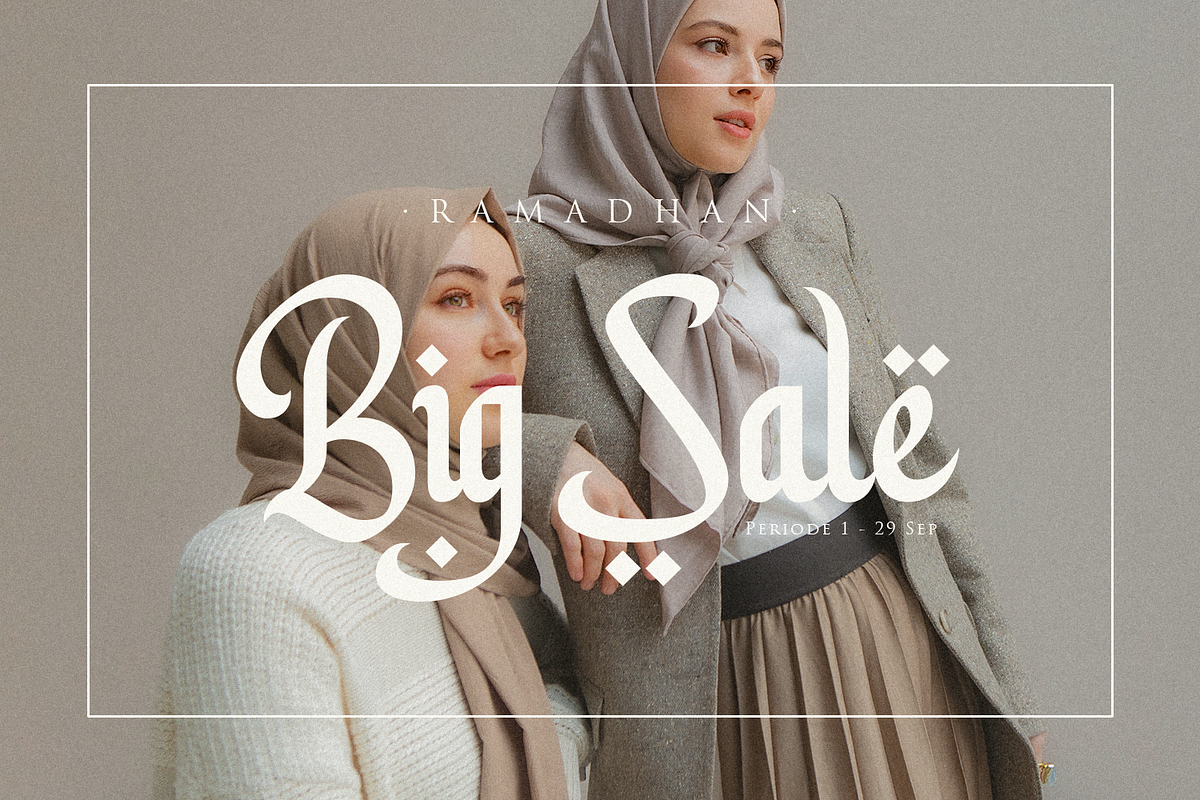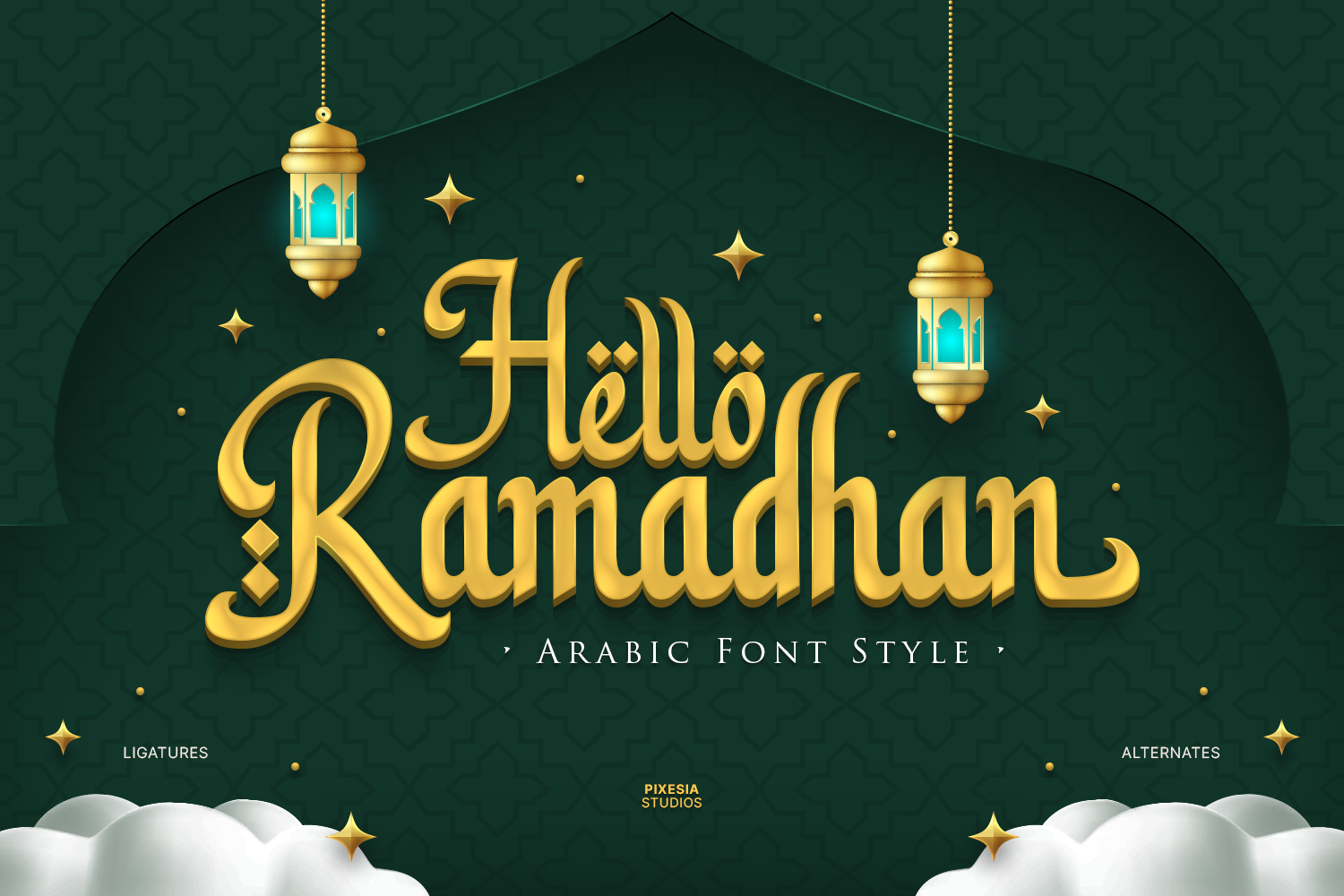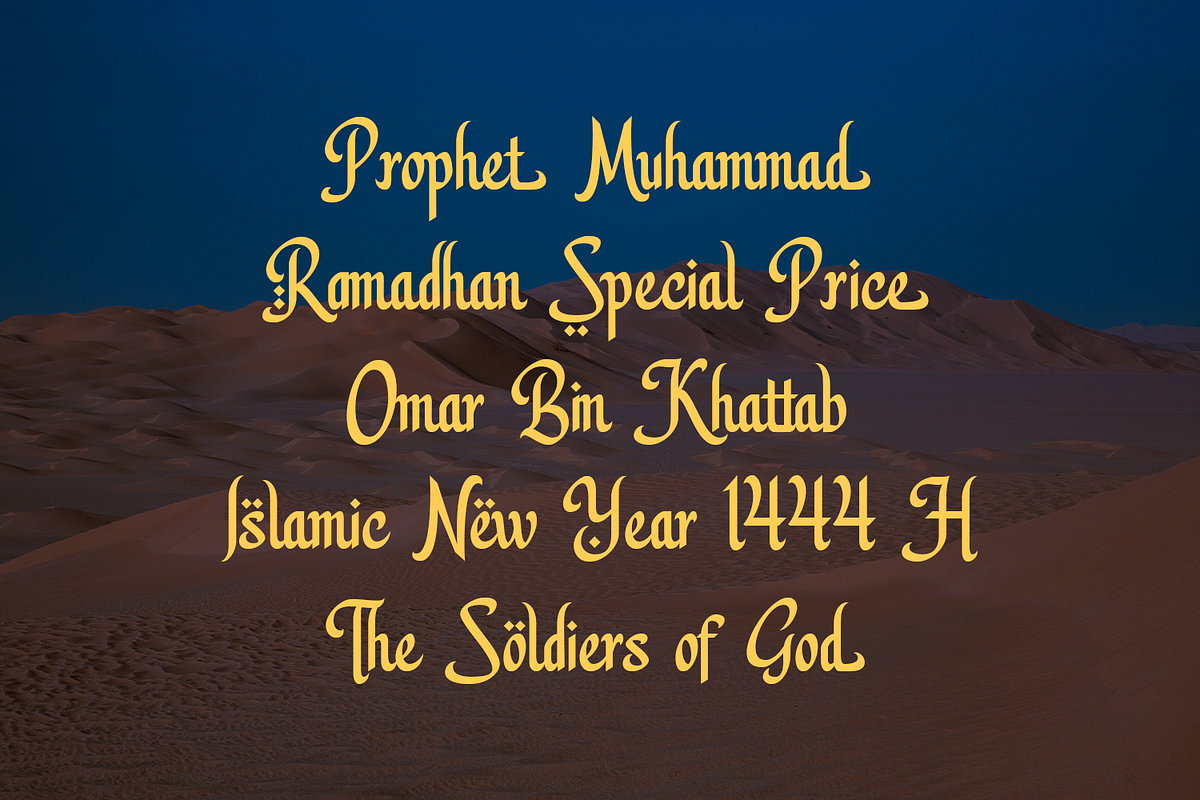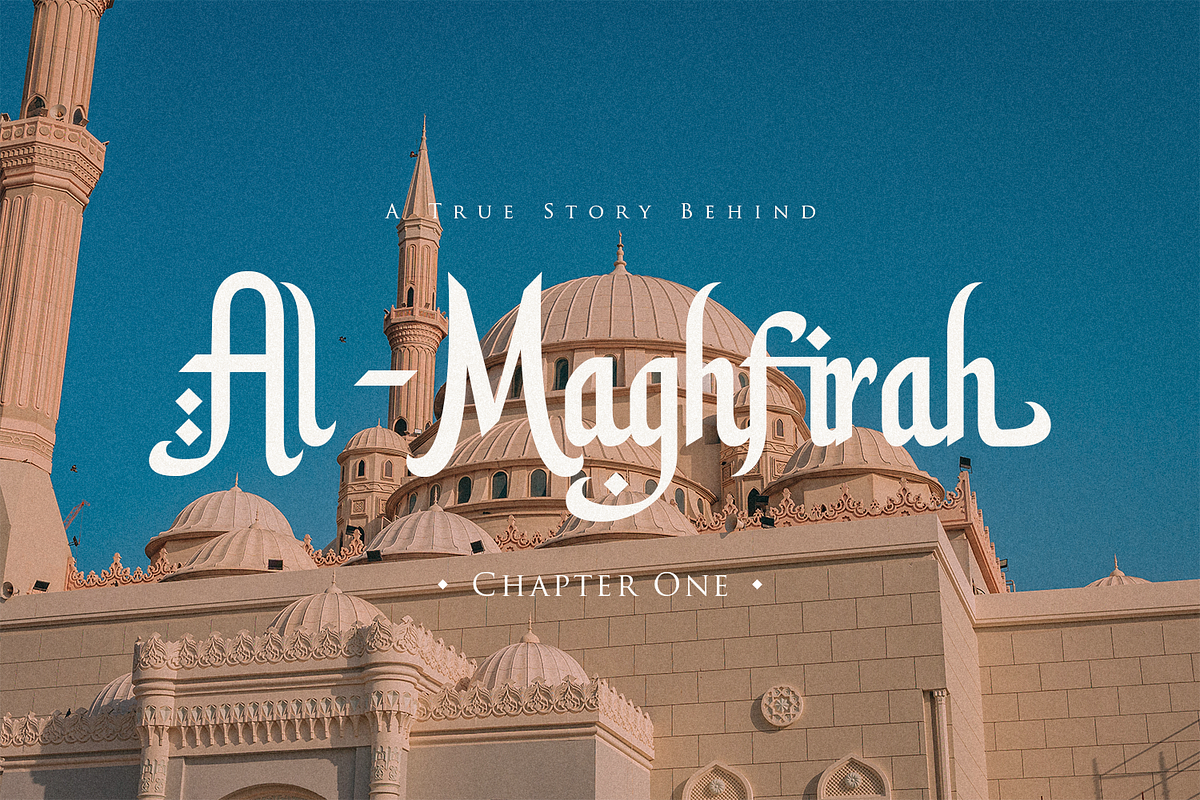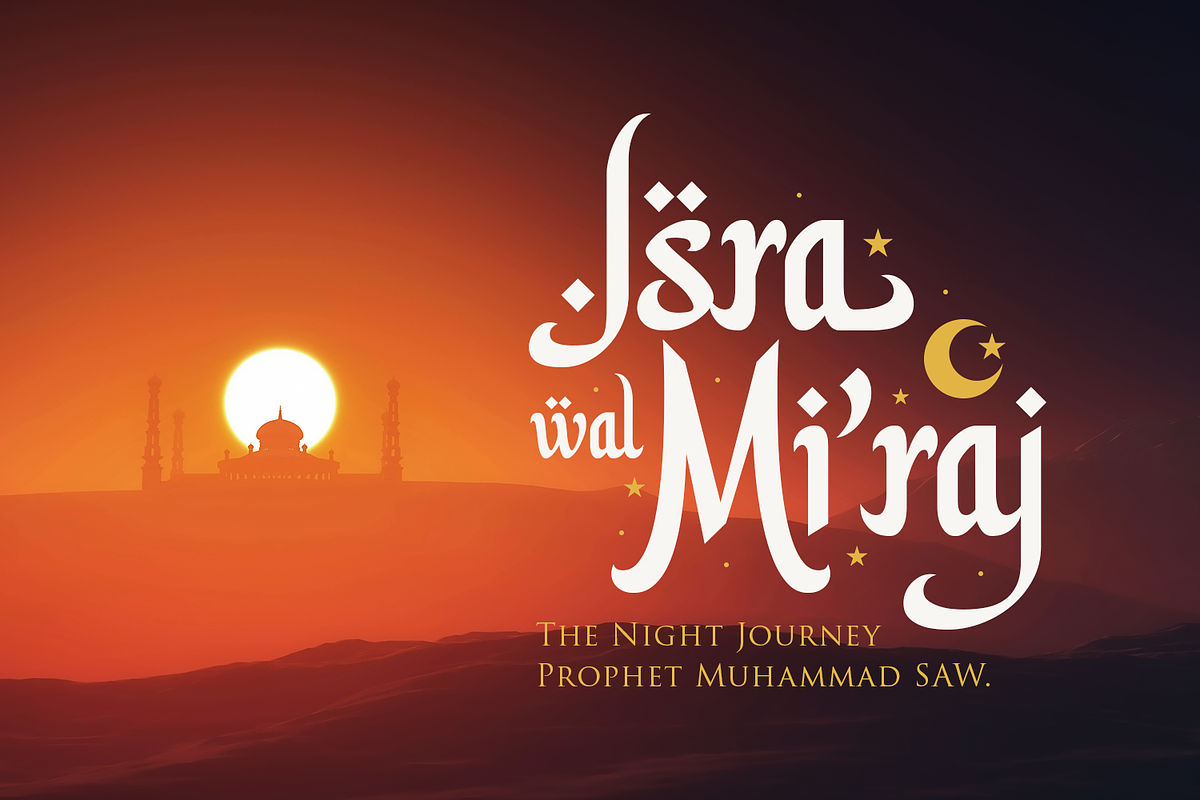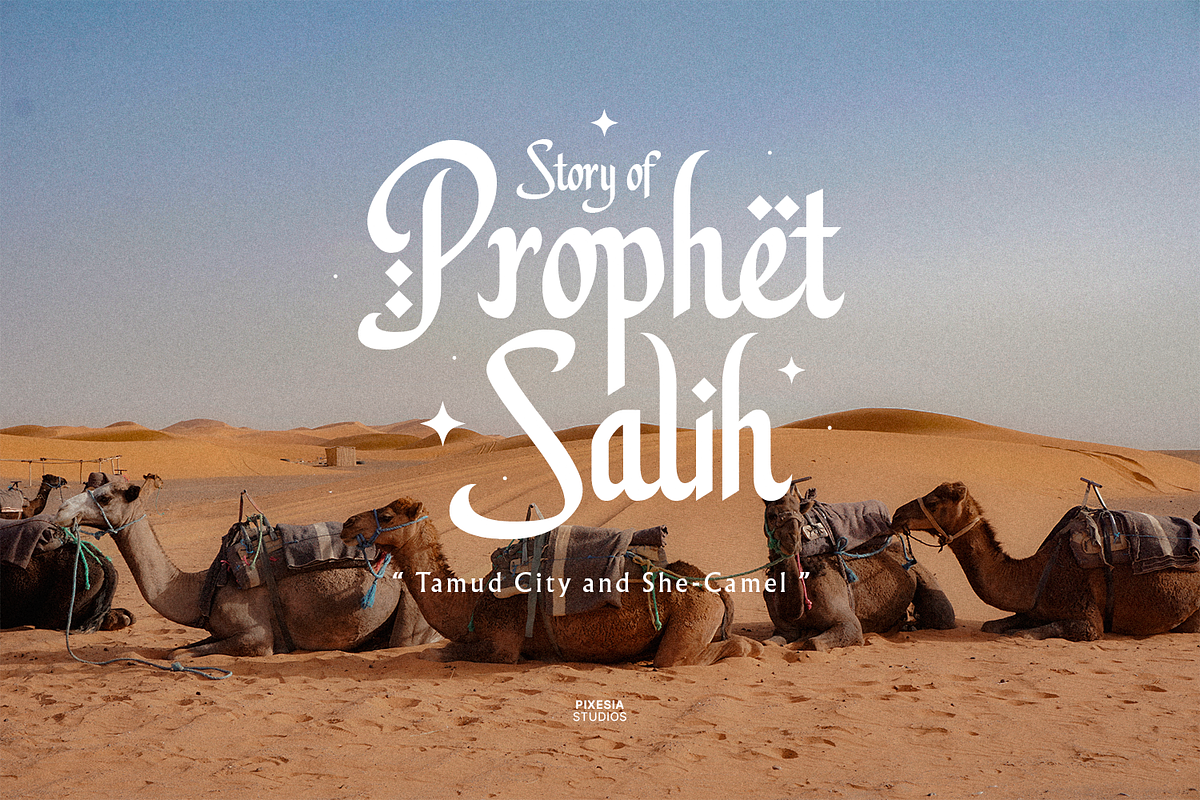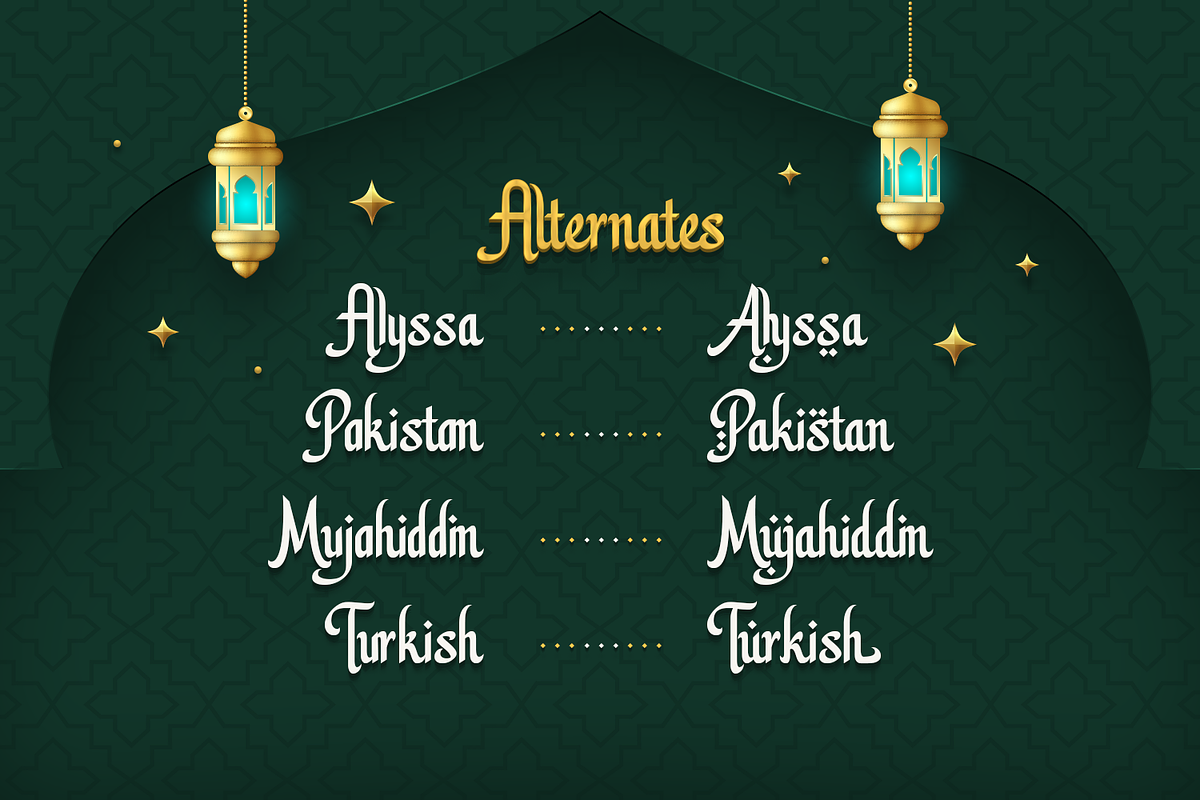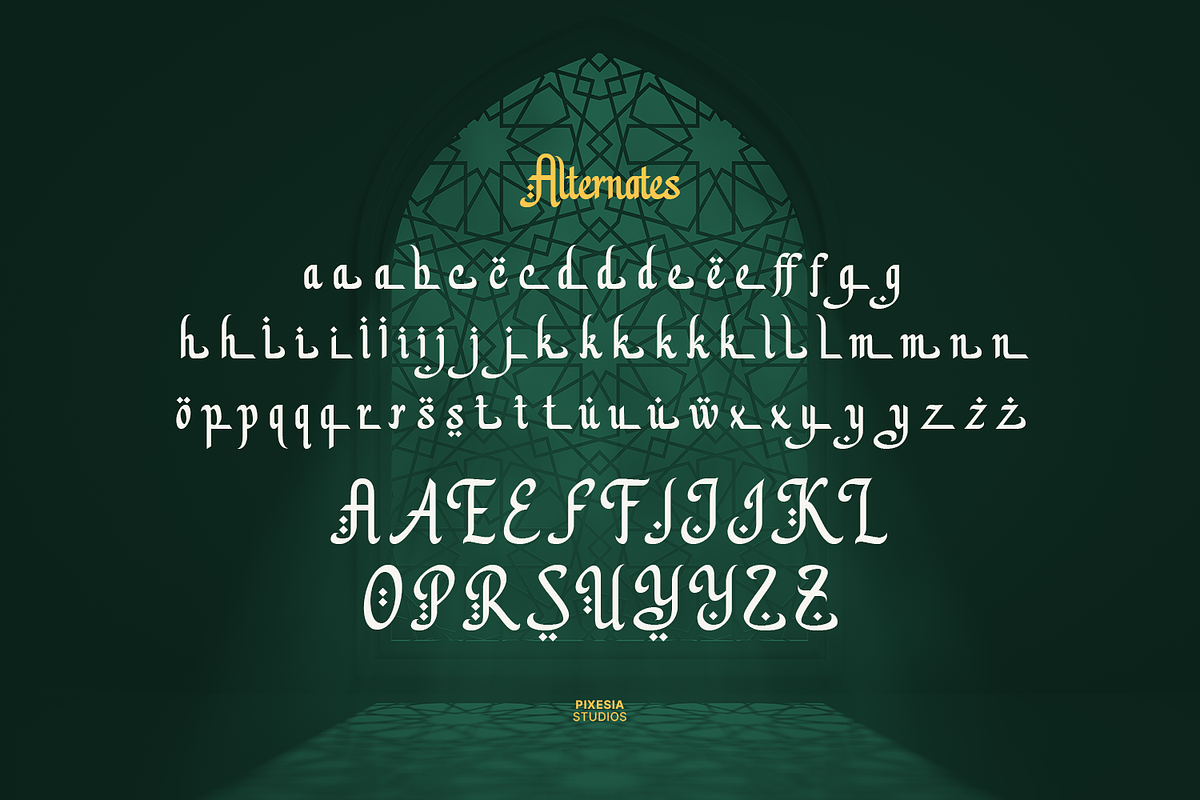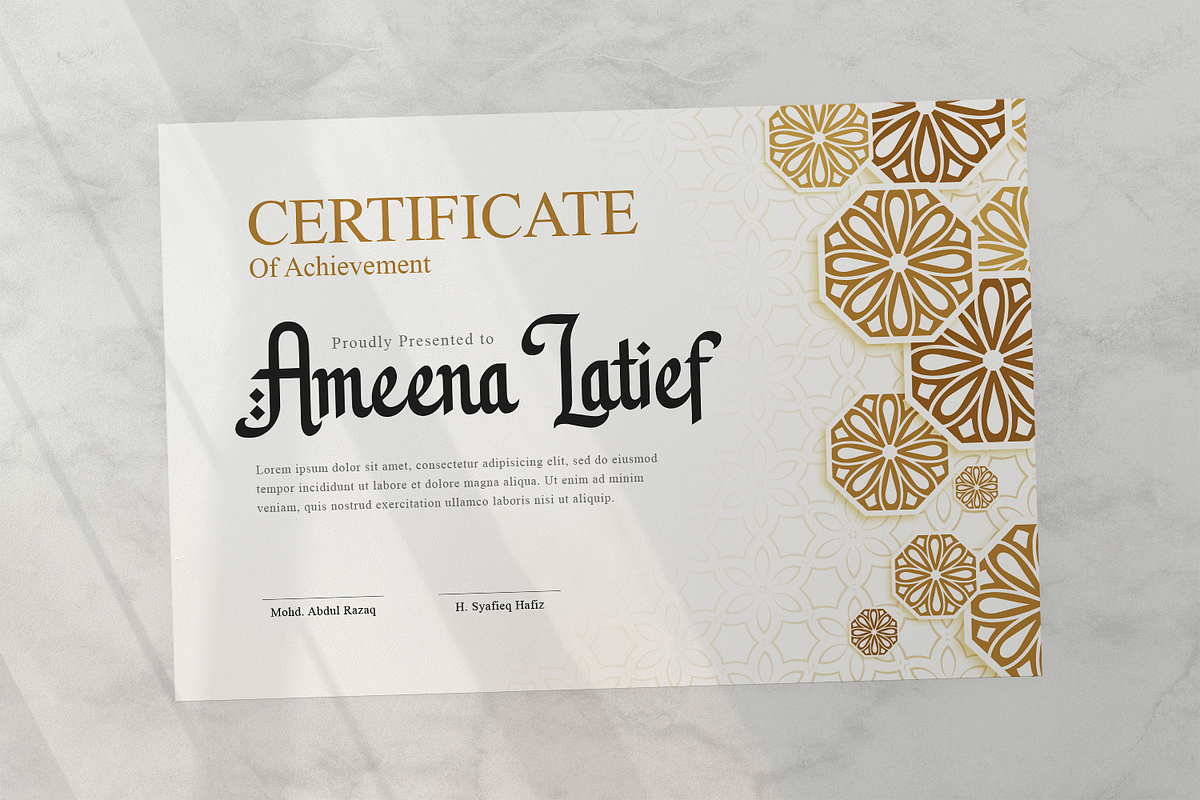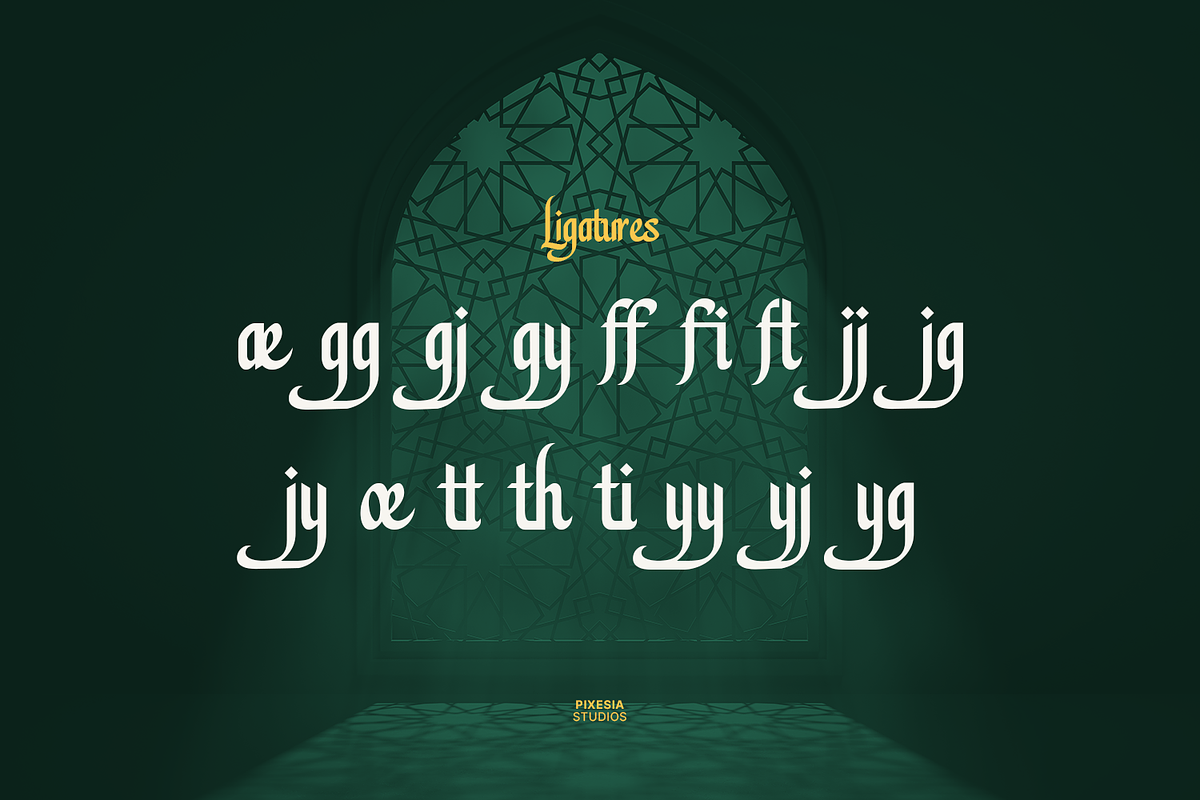
Hello Ramadhan - Arabic Display Font
Introducing Hello Ramadhan - Arabic Display Font
Hello Ramadhan is a beautiful display font with an Arabic style. This font adds an authentic Middle Eastern touch to any text, making it perfect for design projects that require a unique and cultural aesthetic. Whether you're working on a logo, website, or poster, Hello Ramadhan will bring a touch of authenticity and charm to your design. So if you want to add a touch of the exotic to your projects, give Hello Ramadhan a try today!